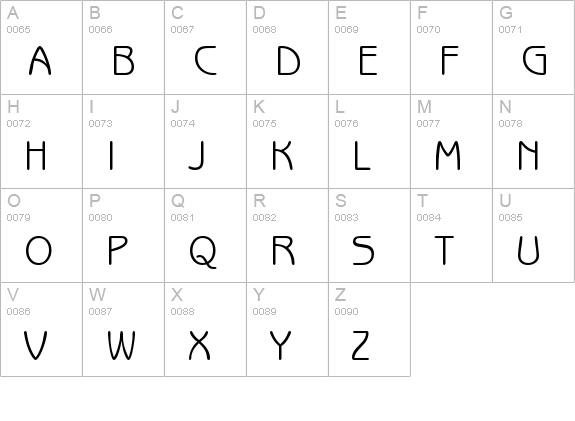
B691-Sans-Regular is the standard, neutral variant in the B691 typeface family \xE2\x80\x94 well suited to general body text, paragraphs, and standard typographic work.